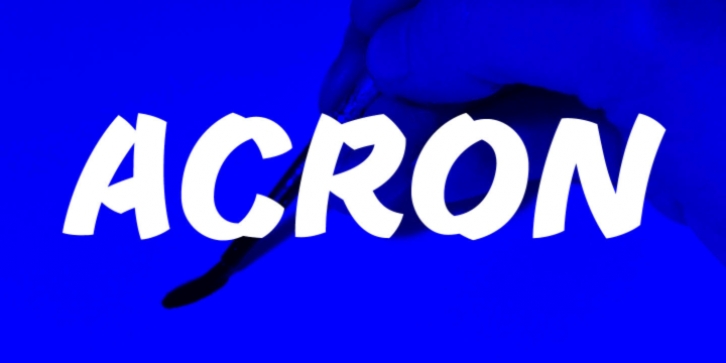
Inspired by American sign painting, Acron is a dynamic brush typeface intended for bold usage in large sizes.
The shapes were developed entirely by hand using brush and ink. The angle and radius described by the movements of hand and wrist, together with the tools used, define the angle, curve and direction of each stroke. The characteristic stroke is created by pressing the brush down firmly at the beginning of each stroke, so that the width of the stroke corresponds to the brush hair’s length from tip to stem. This leads to interesting details where strokes meet and curve, and an overall dynamic type face.
Each glyph was digitized individually to maintain the irregularities that result in the fonts lively character. During this process the corners were sharpened to give it a more vigorous and active personality.
Acron is an all caps typeface, with each glyph pair (Aa) being composed of distinguishable shapes.